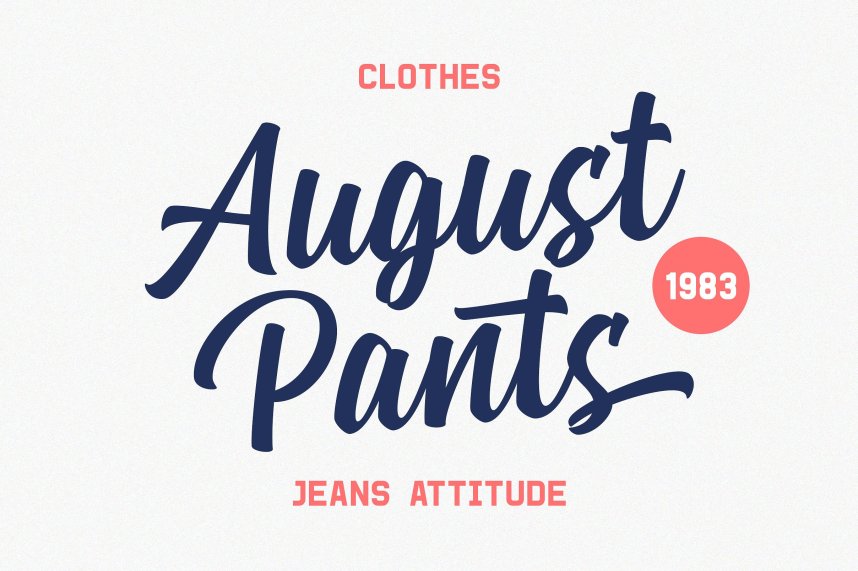
Zeichen Script Font – Free Demo
Introducing Zeichen. It is designed by Alphabeta, this is a premium font, are sold on creativemarket, but it was great, it is free today for download. ZeichenScript is a collective modern retro font combination. Come with 2 families, sans serif and script with uppercase and lowercase, stylistic set, alternates, multilingual, swash, etc to mix and match your design. This font is perfect for your design, logo, label, badges, apparel design, etc. I also made a design to mix and match pairs of letters to fit your design.